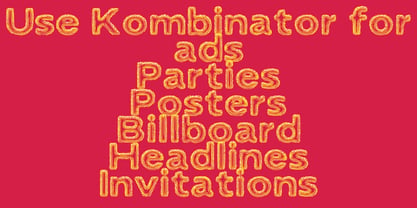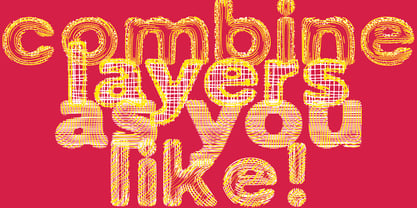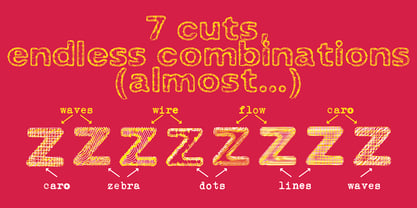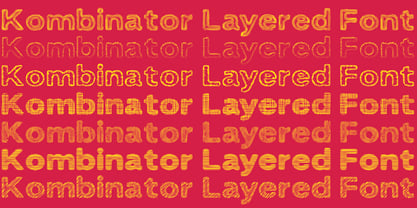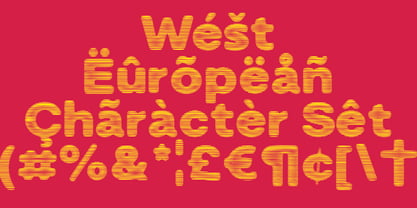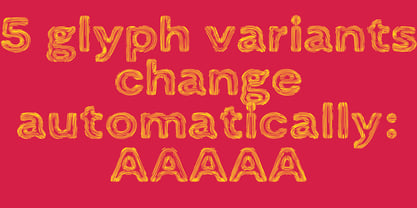
Kombinator
The Kombinator Font Family was designed by Werner Eschmann and published by Fontroll. Kombinator contains 7 styles and family package options. More about this family
With Kombinator, we've created a font comprised of seven distinct styles that can be layered to produce a constantly evolving typeface. This effect is enhanced by the fact that each glyph appears five times within the font and changes automatically, resulting in highly dynamic layouts. The font is ideal for informal writing, headlines, or posters. Use Kombinator's styles on their own or with their companions. When designing the layers, we ensured that all styles blend seamlessly while also maintaining an appealing look for each layer on its own. Use one or more colors and change the order of the layers; each time, a new typeface will emerge. Experiment, but avoid using Kombinator for long passages of text.